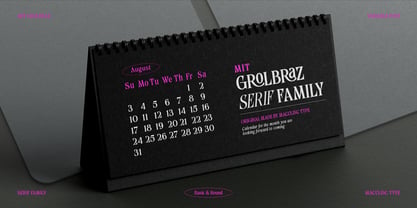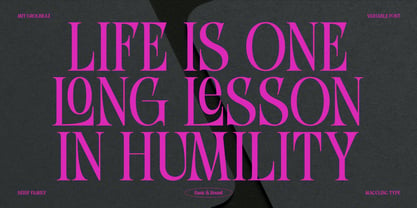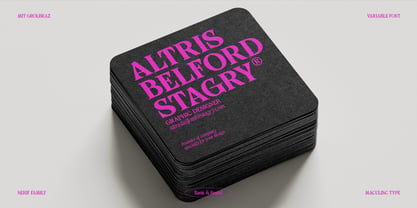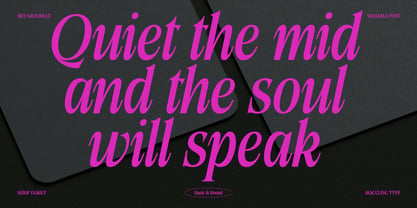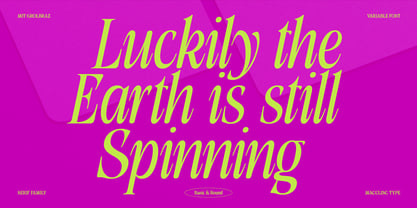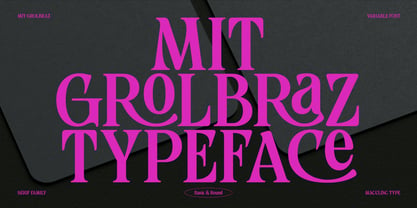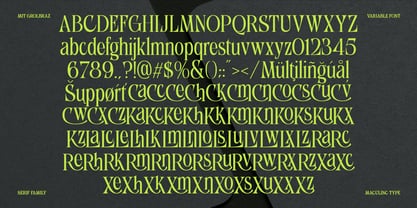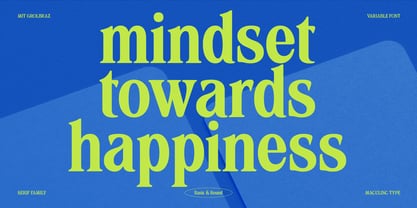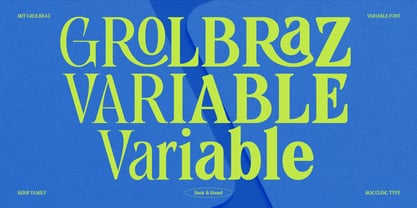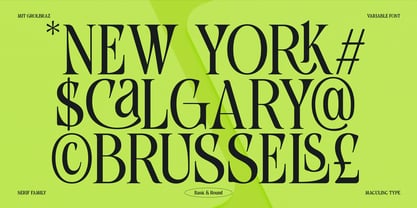
MIT Grolbraz
by Maculinc
The MIT Grolbraz Font Family was designed by Lukmanul Khikmatullah and published by Maculinc. MIT Grolbraz contains 32 styles and family package options. More about this family
About MIT Grolbraz (Serif Family) Variable Font Includes
This simple serif family, with a moderately thin font thickness for each letter, creates a balanced look and is very easy to use. This popular font, similar to most fonts, has a neutral yet recognizable character. It supports uppercase and lowercase letters, numbers, punctuation, and multiple languages, as well as several ligatures. A Variable Font is also available. We also offer an Italic version. All terminals are positioned at the same level, and the glyphs display a balanced stroke.
This font offers MIT Grolbraz Basic and MIT Grolbraz Round styles, the difference being only the angles; otherwise, the font is the same. The name MIT Grolbraz is simply an invention that makes it unique, in our opinion. When developing this typeface, we aimed to create a practical and functional designer tool with its own style and aesthetic.
Thanks to its large character set, diverse font styles, and extensive language support, MIT Grolbraz offers solutions for a wide range of tasks. This gives designers more opportunities to unleash their creativity.
This font is easily adaptable for any contemporary project. Perfect for template and app design, it also looks great in branding, packaging, and print. It's highly readable and works well with running text and large point sizes.
Designers: Lukmanul Khikmatullah
Foundry: Maculinc